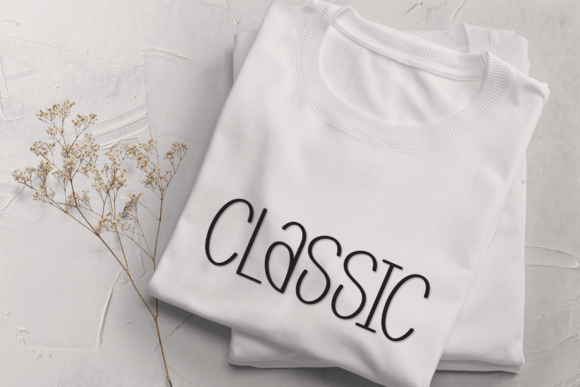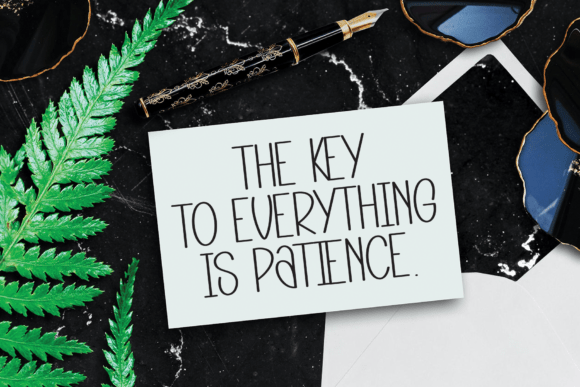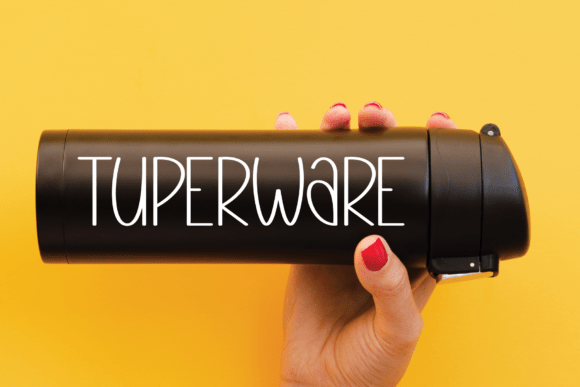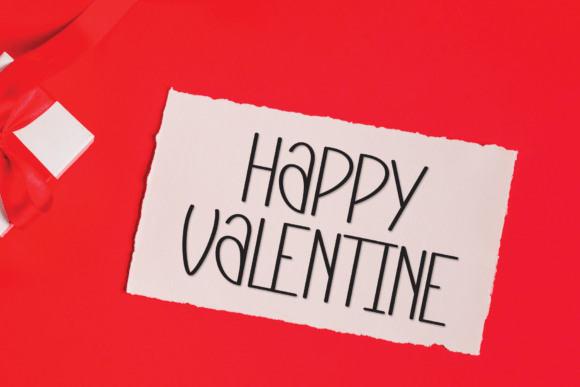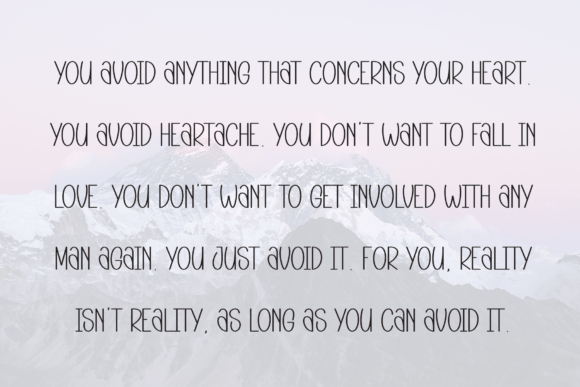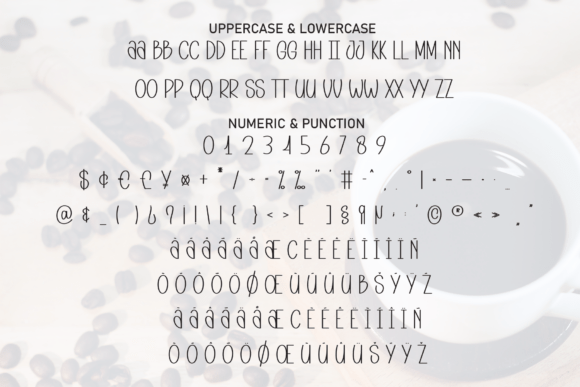
Discover the Delightful Charm of Black Coffee Font
Are you tired of using the same old fonts for your designs? Look no further than the Black Coffee Font, a delightful handwritten display font that is sure to add a touch of charm and personality to your projects. With its innocent sweetness and playful nature, this font is perfect for crafting wedding invitations, greeting cards, and any other creative design that craves a dash of fun.
The Unique Characteristics of Black Coffee Font
Black Coffee Font is a handwritten display font that is infused with an adorable quirks and playful nature. Its innocent sweetness makes it perfect for projects that demand a hint of joy. The font’s unique characteristics include:
- Handwritten style: Black Coffee Font is a handwritten font that gives your designs a personal and human touch.
- Playful nature: The font’s playful nature makes it perfect for projects that require a dash of fun and whimsy.
- Adorable quirks: The font’s adorable quirks and unique letterforms make it stand out from other fonts.
Uses for Black Coffee Font
Black Coffee Font is a versatile font that can be used for a variety of projects, including:
- Wedding invitations: The font’s romantic and whimsical nature makes it perfect for wedding invitations and other wedding-related designs.
- Greeting cards: Black Coffee Font is perfect for creating greeting cards for special occasions such as birthdays, anniversaries, and holidays.
- Creative designs: The font’s playful nature makes it perfect for any creative design that requires a dash of fun and whimsy, such as posters, flyers, and brochures.
Why Choose Black Coffee Font?
There are many reasons why you should choose Black Coffee Font for your next project. Here are a few:
- Unique and eye-catching: The font’s unique and eye-catching design makes it perfect for projects that require a standout font.
- Easy to read: Despite its playful nature, Black Coffee Font is easy to read and understand, making it perfect for projects that require a clear and concise message.
- Versatile: The font’s versatility makes it perfect for a variety of projects, from wedding invitations to creative designs.
Tips for Using Black Coffee Font
Here are a few tips for using Black Coffee Font in your designs:
- Use it sparingly: Black Coffee Font is a bold font, so it’s best to use it sparingly to avoid overwhelming your design.
- Pair it with other fonts: The font pairs well with other fonts, so feel free to experiment with different font combinations.
- Experiment with colors: Black Coffee Font looks great in a variety of colors, so don’t be afraid to experiment with different colors and color combinations.
In conclusion, Black Coffee Font is a delightful handwritten display font that is sure to add a touch of charm and personality to your designs. With its innocent sweetness and playful nature, this font is perfect for crafting wedding invitations, greeting cards, and any other creative design that craves a dash of fun. So why not give it a try and see how it can elevate your designs?
- What type of font is Black Coffee Font?: Black Coffee Font is a handwritten display font.